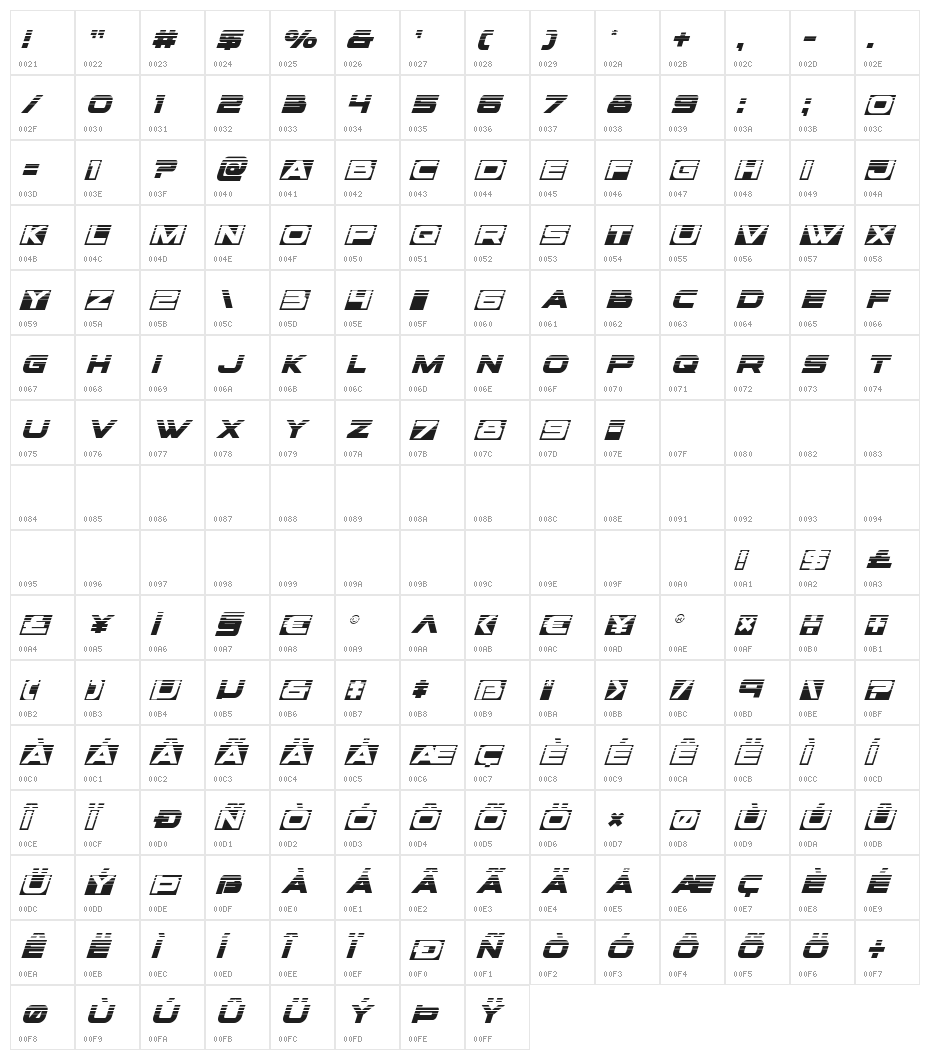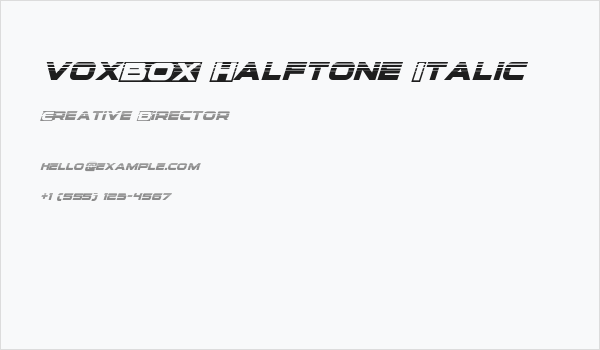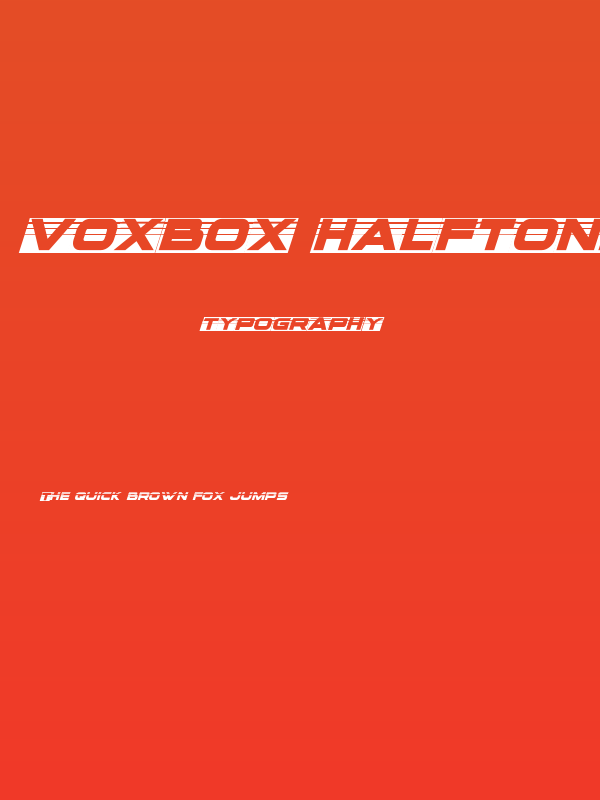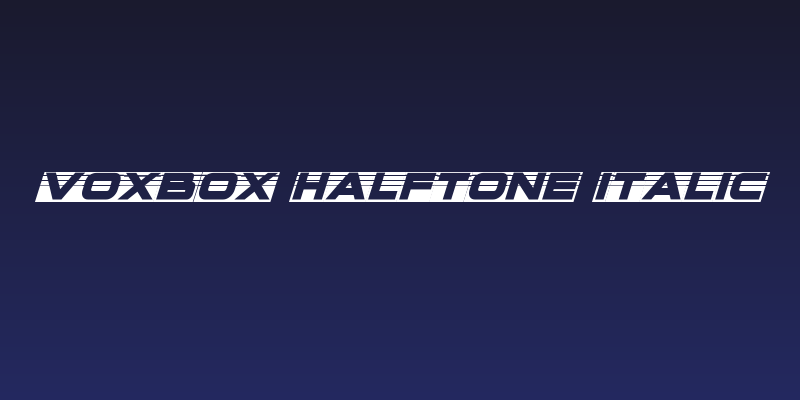
voxBOX Halftone Italic Font
voxBOX Halftone Italic Description
This font features a bold, italicized style with a distinct halftone effect that gives it a dynamic and futuristic appearance. The characters are slanted, adding a sense of motion and speed, which is further emphasized by the horizontal lines cutting through each letter and number. This design choice creates a visually striking effect, making it ideal for attention-grabbing headlines or logos. The font maintains a consistent width and weight across all characters, ensuring uniformity and balance. The spacing between characters is tight, enhancing the compact and cohesive look of the text. The high contrast between the thick and thin strokes adds to the boldness and clarity of the font, making it stand out in any design.
| Overall Style | Futuristic, Dynamic |
| Proposed Projects | Perfect for use in sports branding, tech-related logos, or any project requiring a modern and energetic feel. |